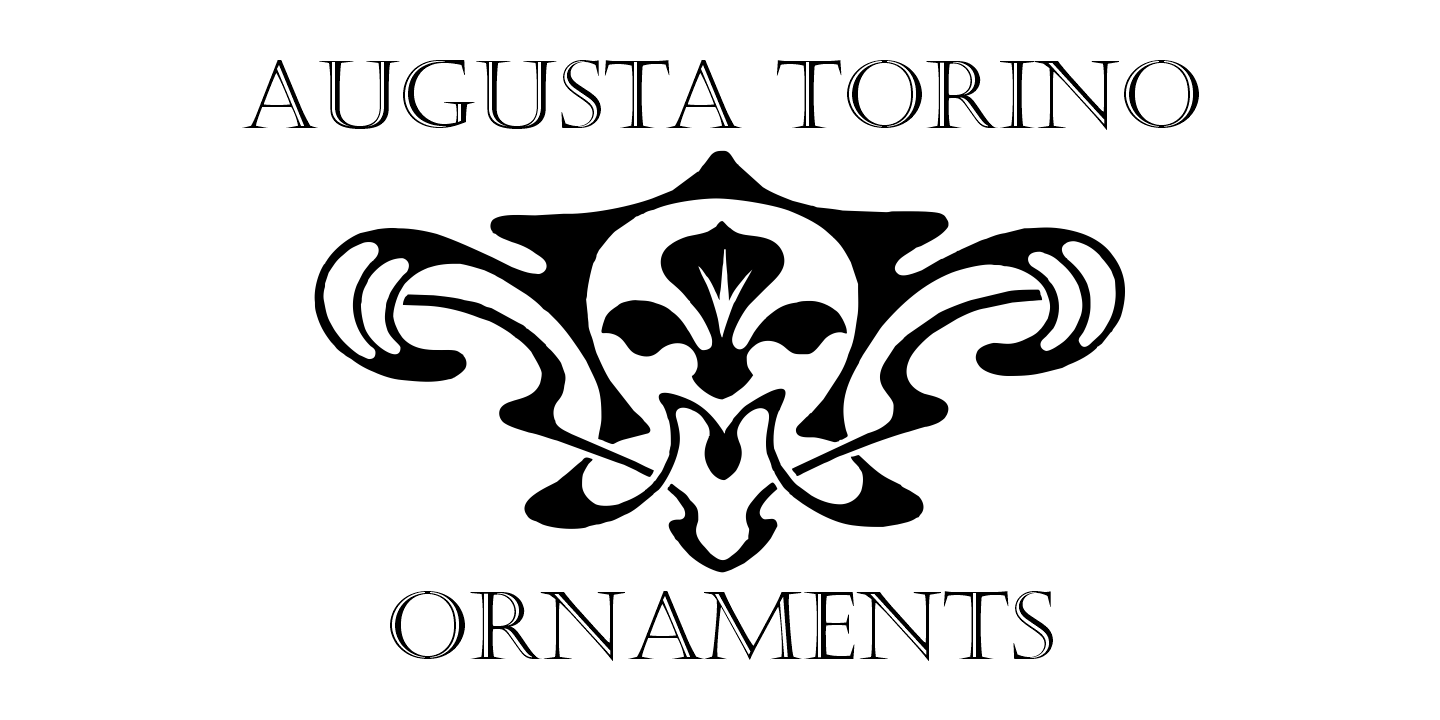
Augusta Torino Ornaments
Augusta Torino Ornaments offers classic art deco ornaments. This dingbats font will complement each of the classic designs that you wish to develop.